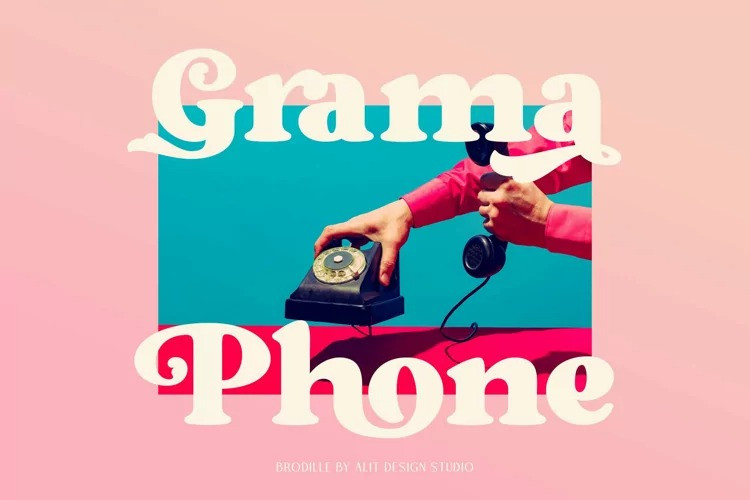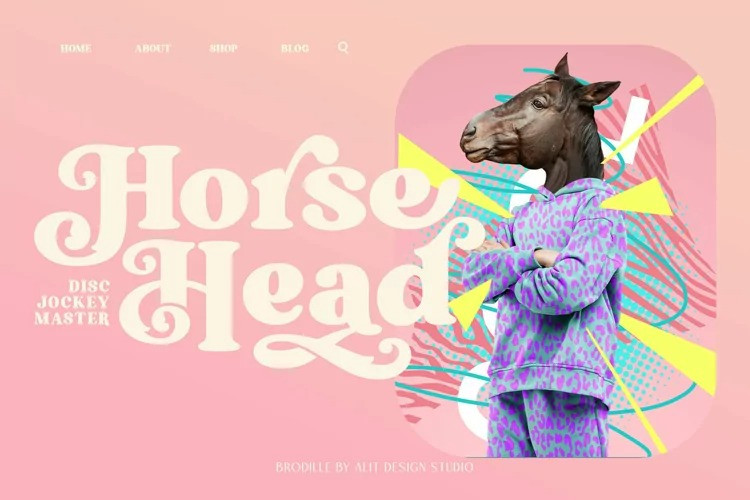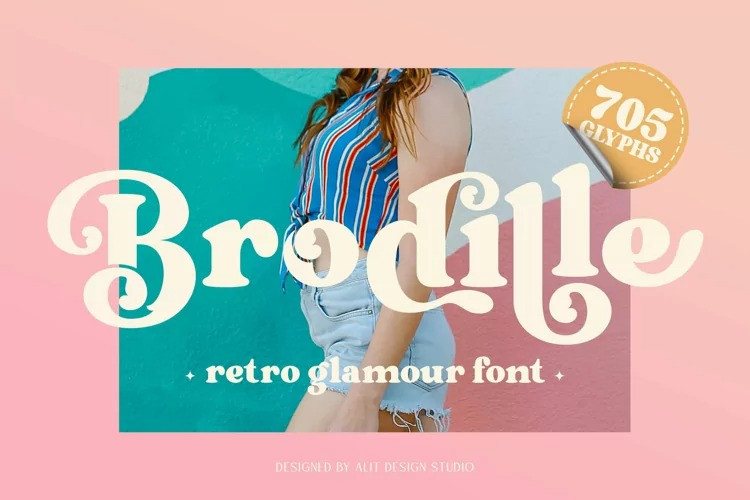
Brodille Font
Brodille Retro font by alitdesign. Brodille typeface was inspired by fashion designs from the 80s to 90s. At the time, font styles like “Brodille Typeface” had a solid and trendy impression. It has a wide selection of alternate characters and dashes that make it easy to create bold retro-style designs.
This is great for creating classic concept designs, simple and playful designs, such as creating magazine cover designs, music covers, YouTube thumbs, text titles, logos, etc with an elegant catchy theme. Besides, this font is very easy to use both in design and non-design programs because everything changes and the glyphs are supported by Unicode (PUA).
It has a total of 705 glyphs including icon, multilanguage and alternative glyphs.